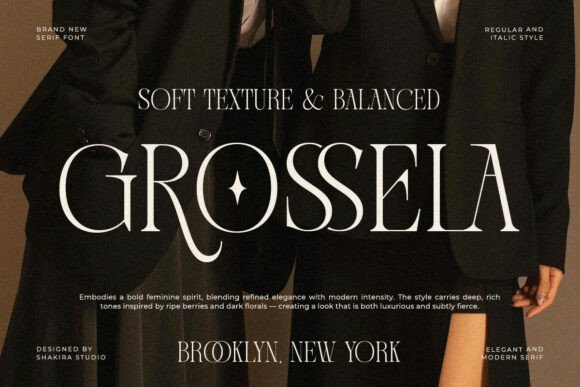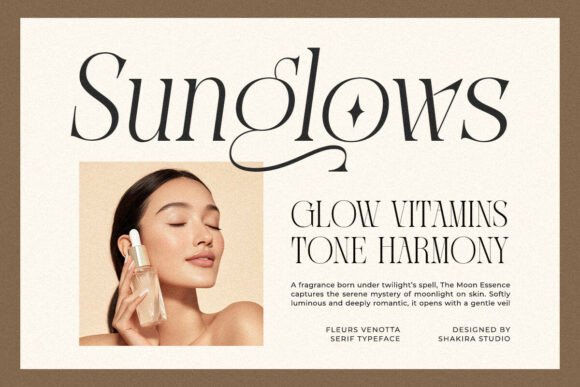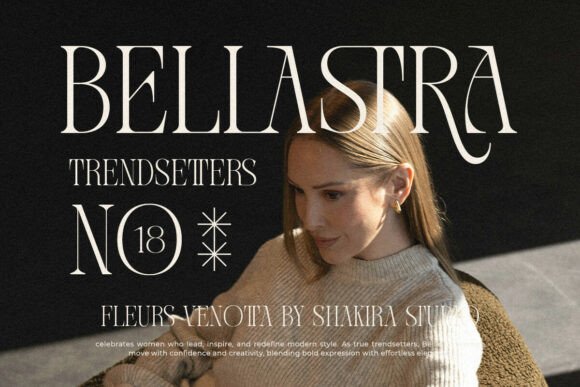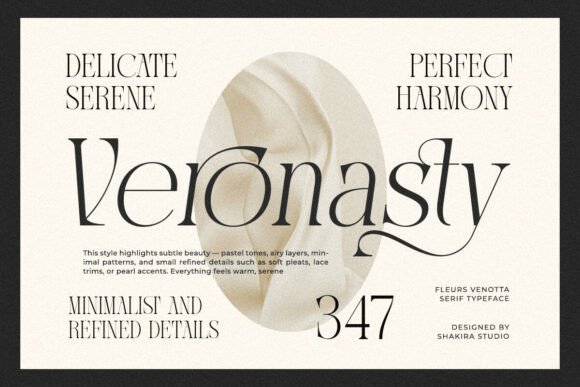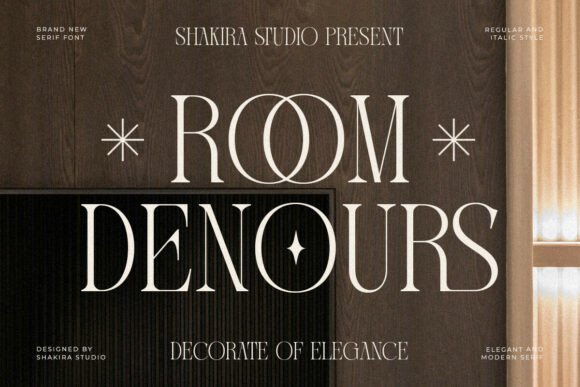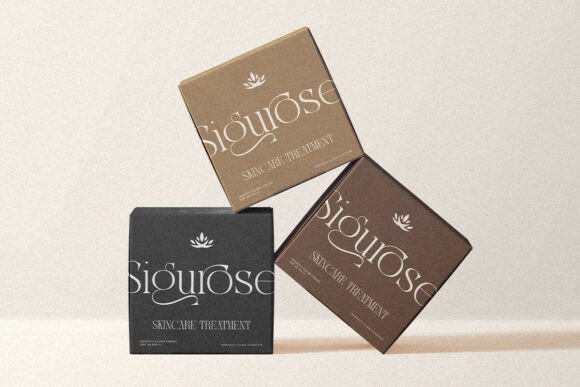
Introduction to Fleurs Venotta Font
Fleurs Venotta is an elegant modern serif typeface designed for refined branding and editorial projects.
Perfect for logos, magazines, fashion brands, packaging, invitations, and luxury design Its high-contrast structure creates a timeless yet contemporary aesthetic.
Key Features of Fleurs Venotta Font
Why Choose Fleurs Venotta Font?